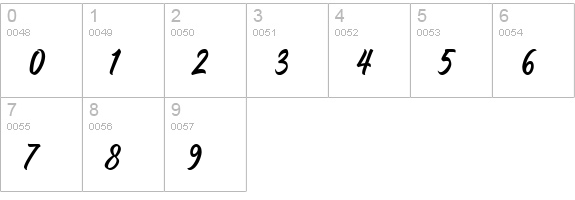
Zafrilus Signature Font Font Details
Zafrilus Signature Font is a free for personal use font in the Script > Handwritten category, designed by hanzel_space. It has been downloaded 43 times and is available for Windows, Mac and Linux.
Introducing Zafrilus Signature Font, a stunning and elegant typeface that exudes sophistication and style. This font is perfect for adding a touch of luxury to your design projects, whether it be for branding, invitations, or any creative endeavor. With its flowing curves and exquisite details, Zafrilus Signature Font is sure to make a lasting impression.